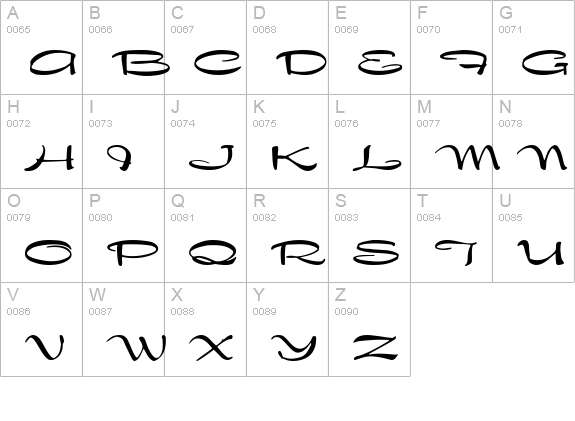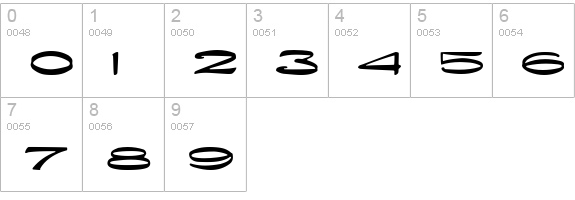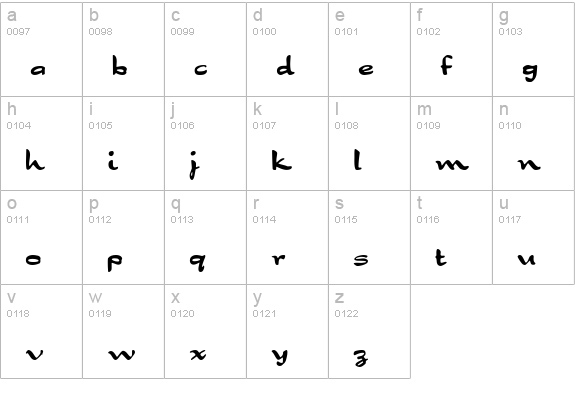
Dragonfly Font Details
Dragonfly font is a stunning display typeface that exudes elegance and sophistication. Its delicate strokes and intricate details make it perfect for adding a touch of charm to any design project. With its graceful curves and unique letterforms, Dragonfly font stands out as a versatile choice for both headings and body text. The best part? Dragonfly font is completely free to download at FontsMarket.com! Whether you're working on a branding project, a website design, or any other creative endeavor, this font is sure to elevate your work to the next level. Don't miss out on the opportunity to enhance your designs with the beauty of Dragonfly font – download it now and let your creativity soar.